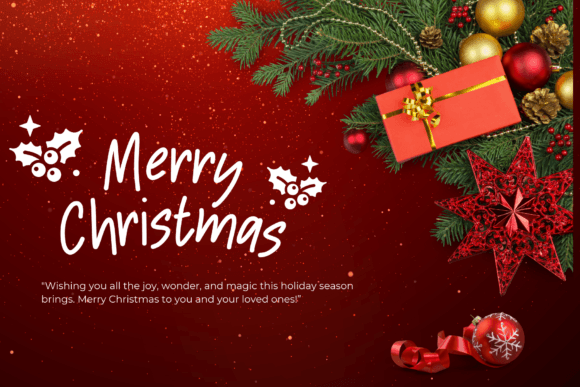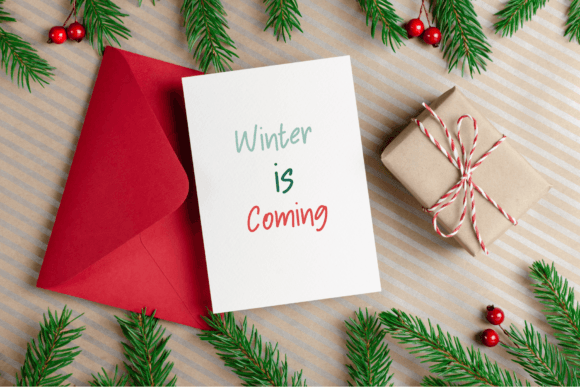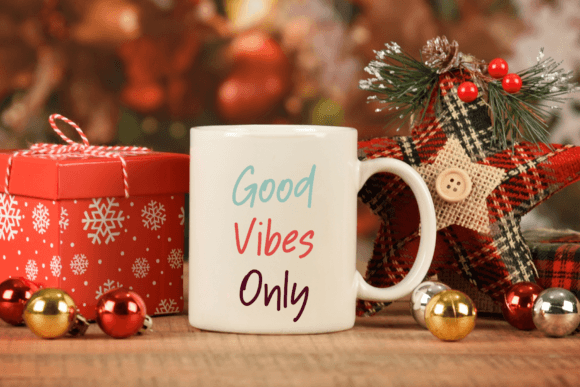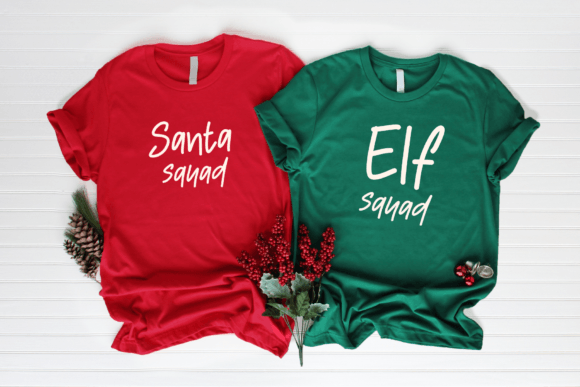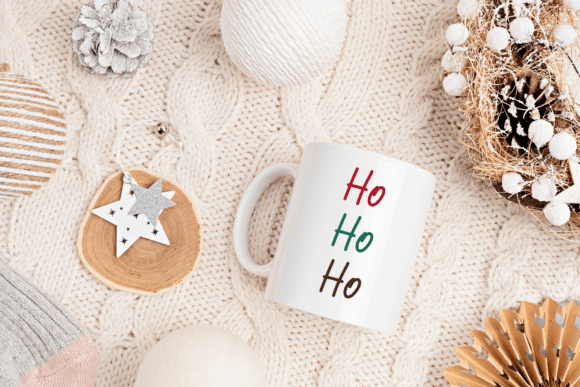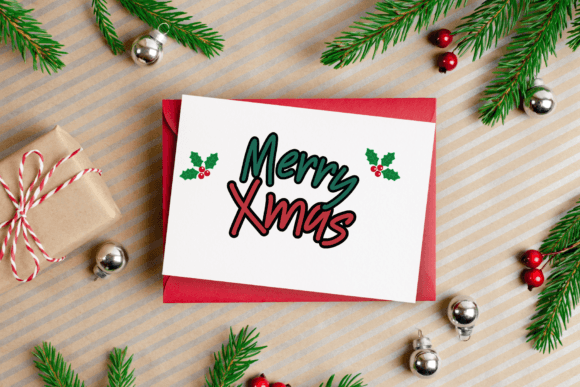
Introducing Donner Font: The Ultimate Choice for Playful and Authentic Designs
Are you tired of using the same old fonts for your designs? Look no further than Donner Font, a fun and handwritten font that embodies playfulness and authenticity. Whether you’re working on a blog post, logo, branding, ad, invitation, greeting card, planner, photo album, decoration, or any other project, Donner Font is the perfect choice. In this article, we’ll explore the features and benefits of Donner Font and why it’s a must-have for designers and crafters.
What is Donner Font?
Donner Font is a unique and creative handwritten font that is designed to add a personal touch to your designs. It’s a fun and playful font that is perfect for projects that require a friendly and approachable tone. The font is carefully crafted to provide a sense of authenticity and originality, making it stand out from more traditional fonts.
Key Features of Donner Font
- Handwritten style: Donner Font has a beautiful handwritten style that gives your designs a personal and unique touch.
- Playful and fun: The font is designed to be playful and fun, making it perfect for projects that require a friendly and approachable tone.
- Authentic and original: Donner Font is carefully crafted to provide a sense of authenticity and originality, making it stand out from more traditional fonts.
- Versatile: The font is versatile and can be used for a wide range of projects, from blog posts and logos to invitations and decorations.
Benefits of Using Donner Font
So, why should you choose Donner Font for your designs? Here are just a few benefits of using this amazing font:
- Adds a personal touch: Donner Font adds a personal touch to your designs, making them more relatable and engaging.
- Stand out from the crowd: The font’s unique and playful style helps your designs stand out from the crowd and grab attention.
- Easy to read: Despite its playful style, Donner Font is easy to read and understand, making it perfect for body text and headlines.
- Customizable: The font is highly customizable, allowing you to adjust the size, color, and style to fit your design needs.
- Pair it with other fonts: Donner Font pairs well with other fonts, so feel free to experiment with different combinations to find the perfect look for your design.
- Use it for headlines and body text: The font is suitable for both headlines and body text, making it a great choice for blog posts, articles, and other written content.
- Experiment with colors and sizes: Don’t be afraid to experiment with different colors and sizes to find the perfect look for your design.